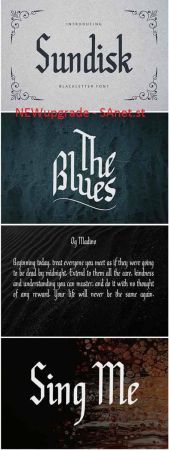
DesignOptimal - Sundisk Font
Sundisk is a blackletter handwritten font created with an attention to detail. It is a versatile font that works well with many different design projects.